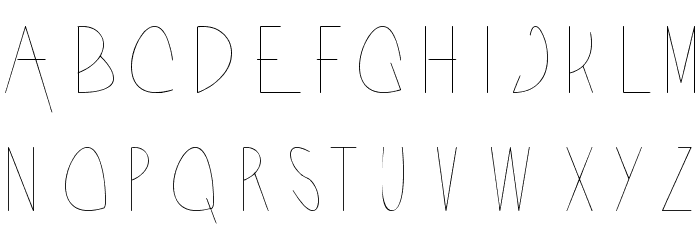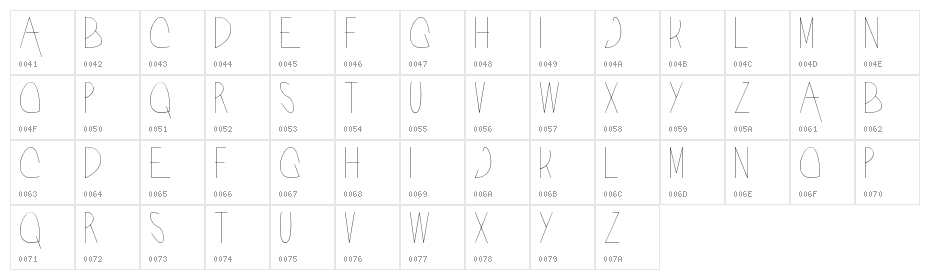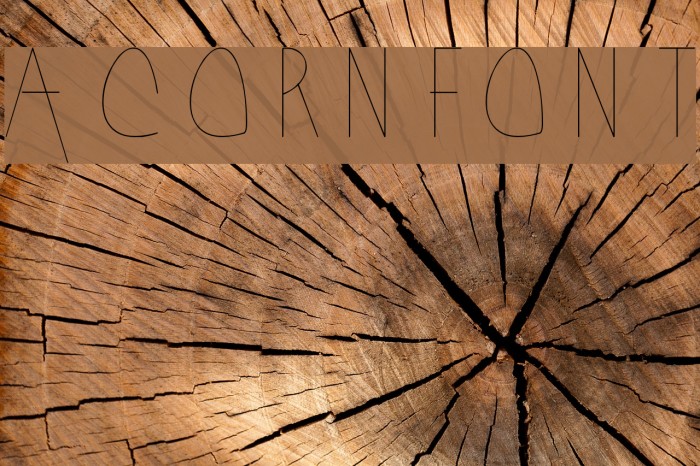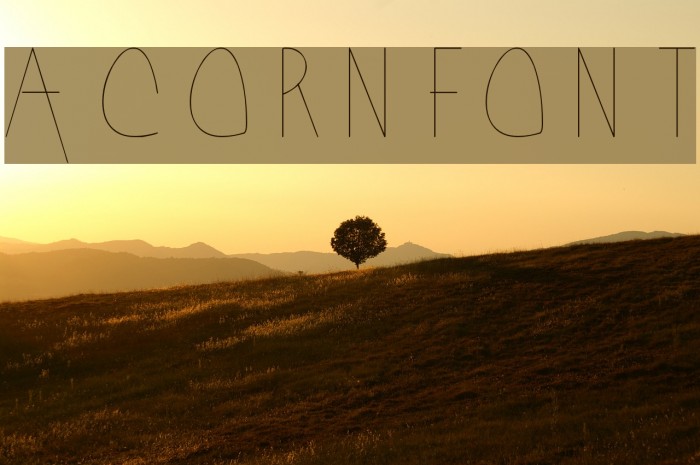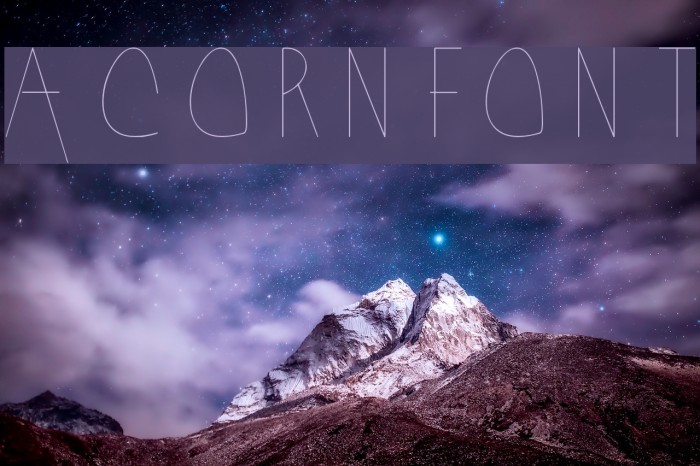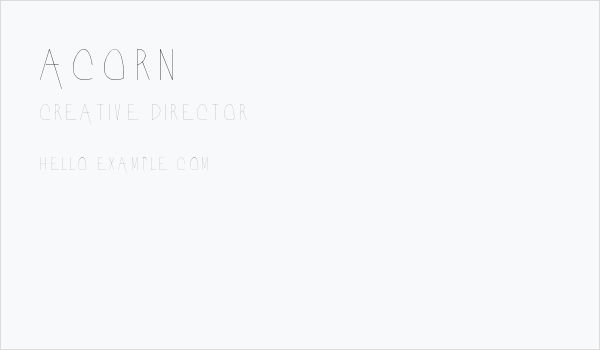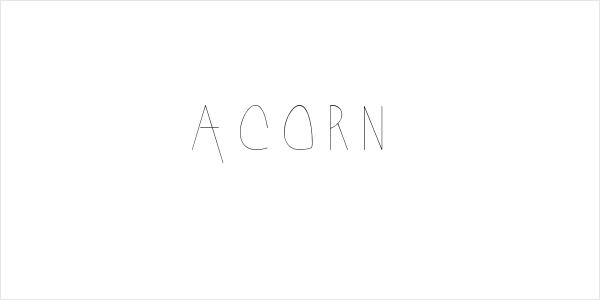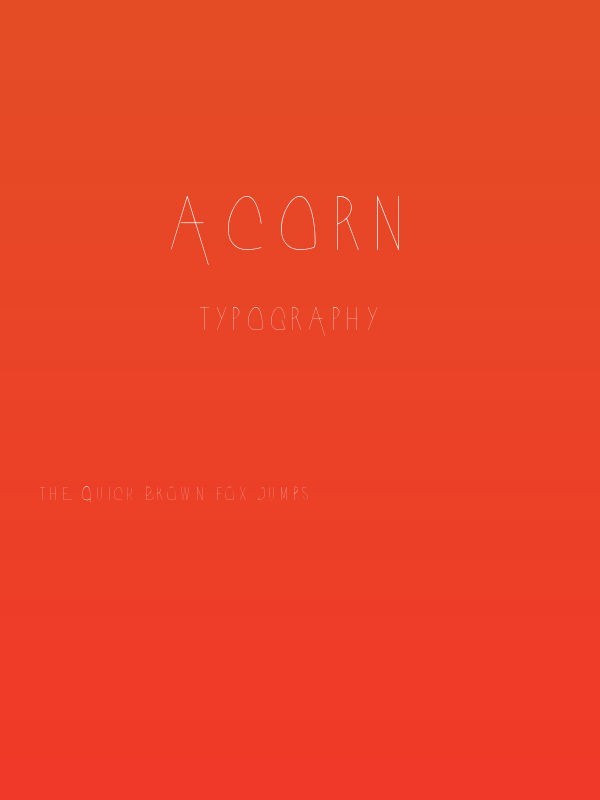
Acorn Font
Acorn Description
This font features a minimalist and geometric design, characterized by its thin, clean lines and modern aesthetic. The uppercase letters are distinct with a unique blend of straight and curved elements, creating an elegant and sophisticated look. The lowercase letters maintain a consistent style, offering a seamless transition between characters. The numbers and special characters are crafted with the same attention to detail, ensuring uniformity across all glyphs. This font's simplicity and clarity make it highly versatile, suitable for various design applications.
| Proposed Projects | Ideal for modern branding, editorial design, minimalist posters, and digital interfaces. |